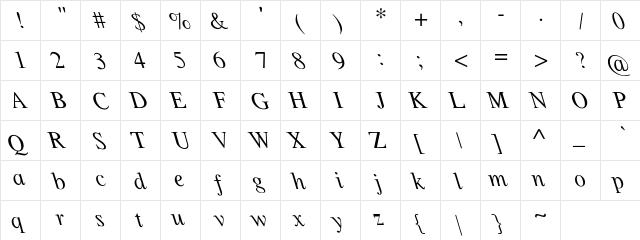
Forge Reverse Italic Regular Font Preview
Forge Reverse Italic Regular
Design Context for Forge Reverse Italic Typeface
Forge Reverse Italic offers clean, dependable letterforms without strong stylistic allegiance, making it a practical choice for designers who need flexibility. The slanted form adds forward momentum and visual energy.